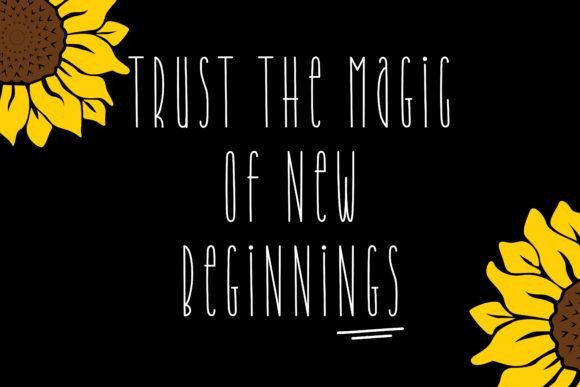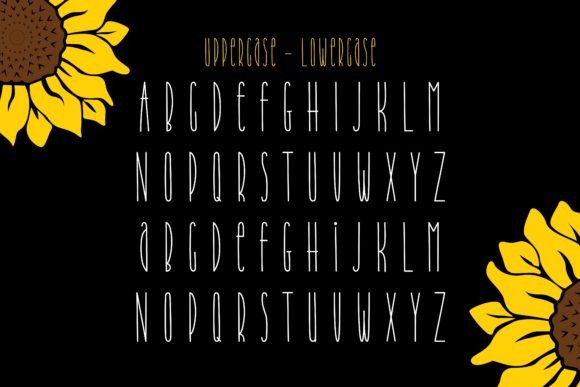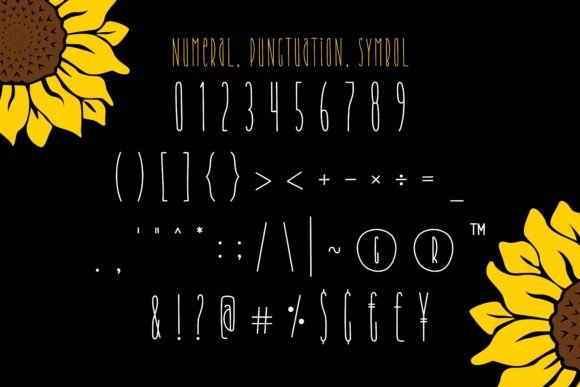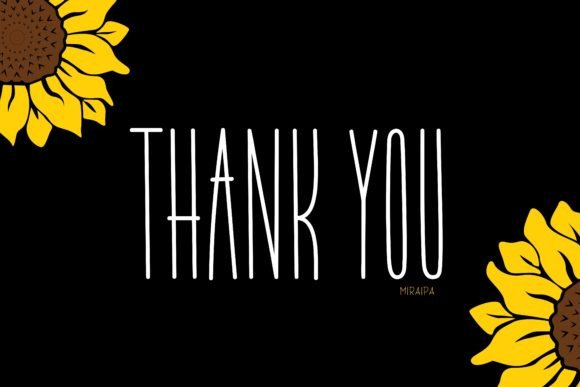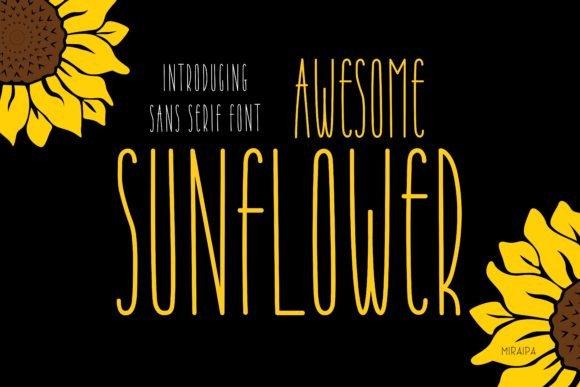
Awesome Sunflower Font: Adding a Whimsical Touch to Your Designs
Are you looking for a font that can add a playful and joyful touch to your designs? Look no further than the Awesome Sunflower Font! This sweet and quirky handwritten sans serif font is perfect for designers and crafters who want to bring a sense of whimsy and authenticity to their projects.
What Makes Awesome Sunflower Font So Special?
Awesome Sunflower Font is a unique and charming font that embodies playfulness and authenticity. Its handwritten sans serif design makes it perfect for a wide range of projects, from children’s books and educational materials to branding and advertising. The font’s quirky and sweet personality shines through in every letter, making it a great choice for designers who want to add a personal touch to their work.
Key Features of Awesome Sunflower Font
- Handwritten sans serif design: The font’s handwritten design gives it a personal and authentic feel, while its sans serif style makes it clean and easy to read.
- Playful and joyful personality: Awesome Sunflower Font is the perfect choice for designers who want to add a touch of whimsy and fun to their projects.
- Perfect for a wide range of projects: From children’s books and educational materials to branding and advertising, this font is versatile and can be used in a variety of contexts.
- Easy to read and understand: Despite its playful personality, Awesome Sunflower Font is clean and easy to read, making it perfect for body text and headings.
How to Use Awesome Sunflower Font in Your Designs
Awesome Sunflower Font is a versatile font that can be used in a wide range of design projects. Here are a few ideas to get you started:
- Children’s books and educational materials: The font’s playful and joyful personality makes it perfect for children’s books, educational materials, and other projects aimed at kids.
- Branding and advertising: Use Awesome Sunflower Font to add a touch of whimsy and personality to your brand or advertising campaign.
- Stationery and crafts: The font’s handwritten design makes it perfect for stationery, crafts, and other DIY projects.
- Web design: Use Awesome Sunflower Font to add a playful touch to your website or blog.
Tips for Getting the Most Out of Awesome Sunflower Font
Here are a few tips for getting the most out of Awesome Sunflower Font:
- Use it in combination with other fonts: Pair Awesome Sunflower Font with other fonts to create a unique and interesting contrast.
- Experiment with different colors and textures: The font’s playful personality lends itself well to bright colors and fun textures.
- Don’t be afraid to get creative: Awesome Sunflower Font is a versatile font that can be used in a wide range of contexts, so don’t be afraid to think outside the box and try new things.
Awesome Sunflower Font is a sweet and quirky handwritten sans serif font that is perfect for designers and crafters who want to add a playful and joyful touch to their projects. With its unique and charming personality, this font is sure to bring a sense of whimsy and authenticity to any design. So why not give it a try and see how it can elevate your designs?